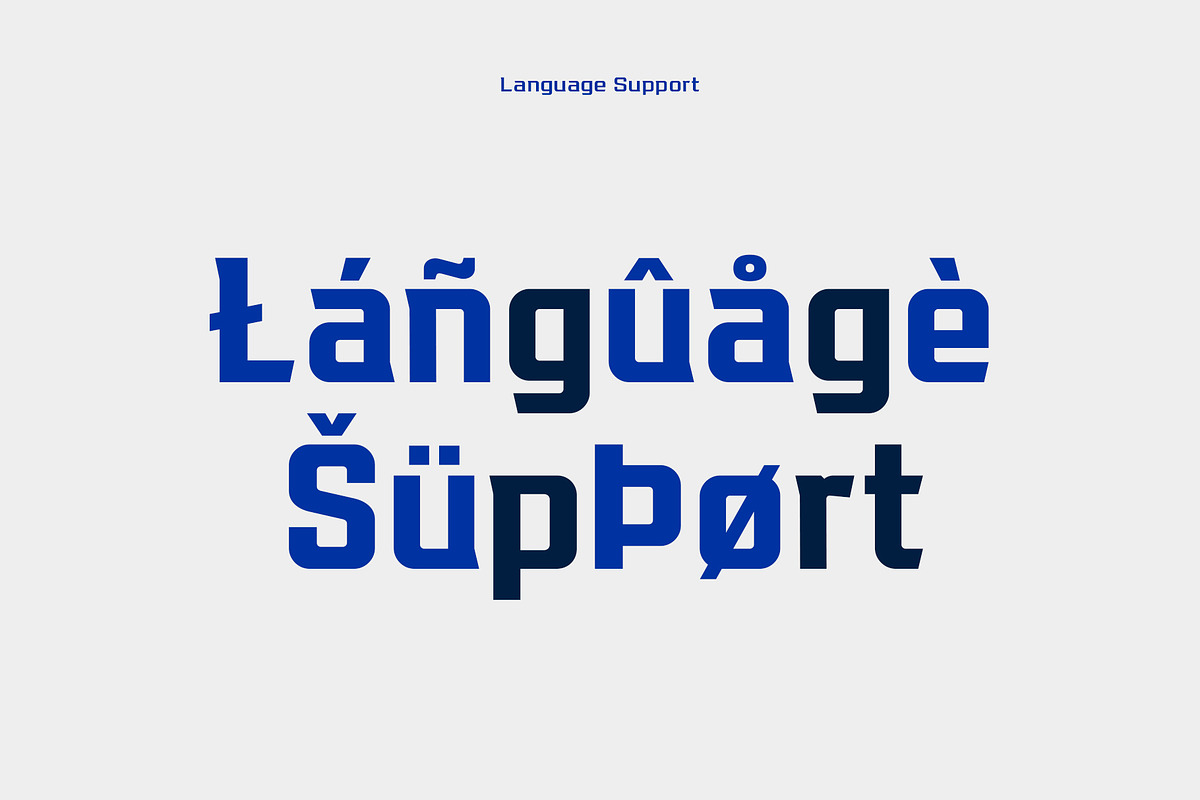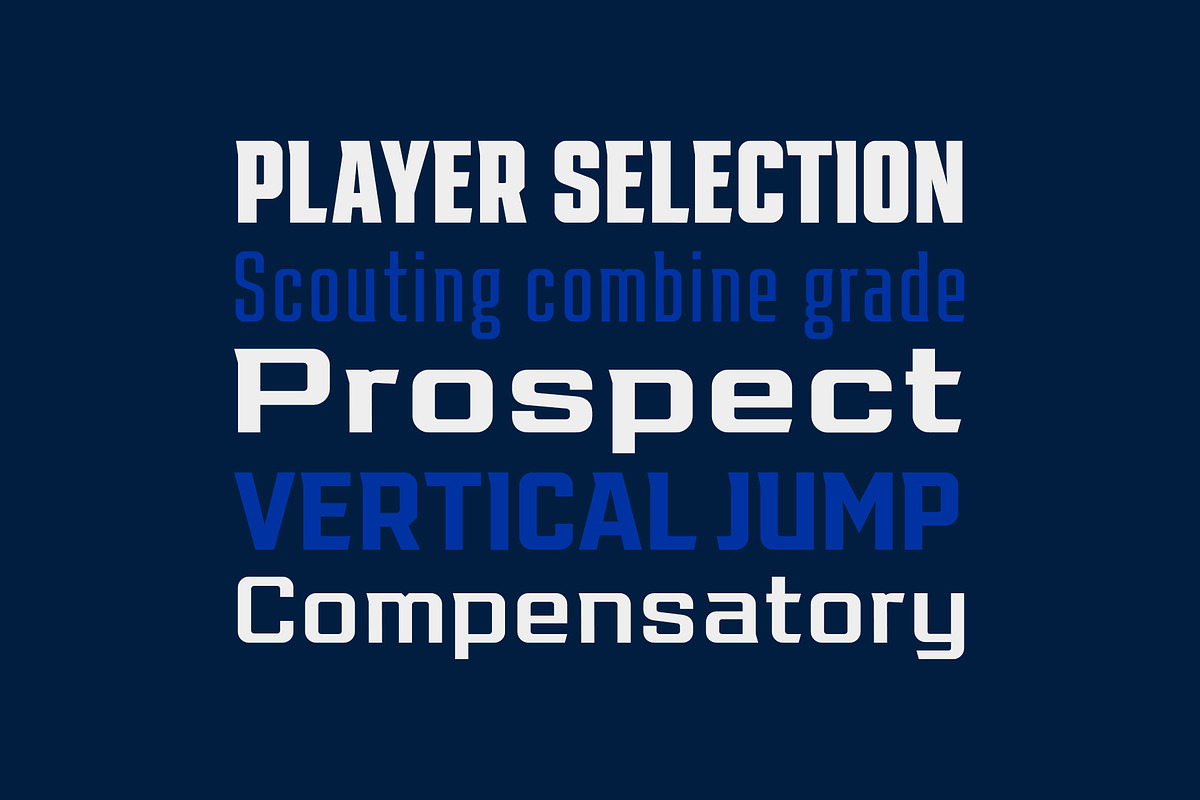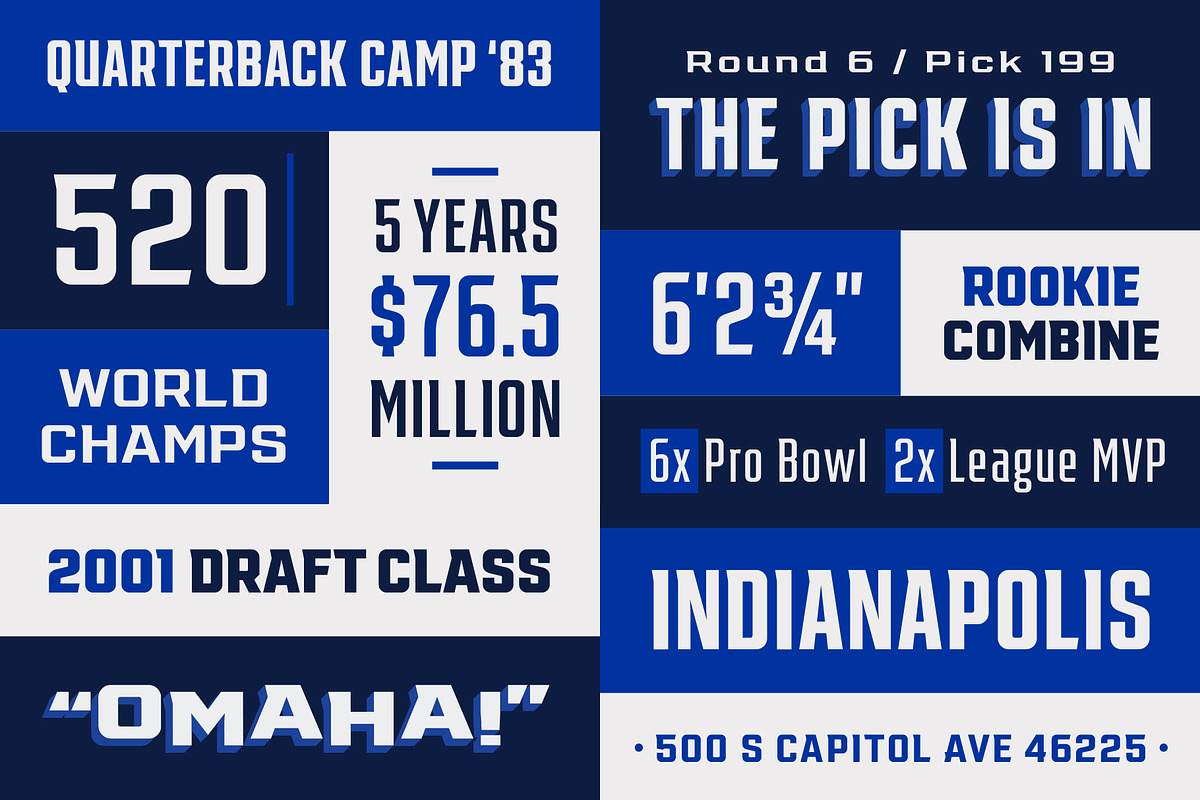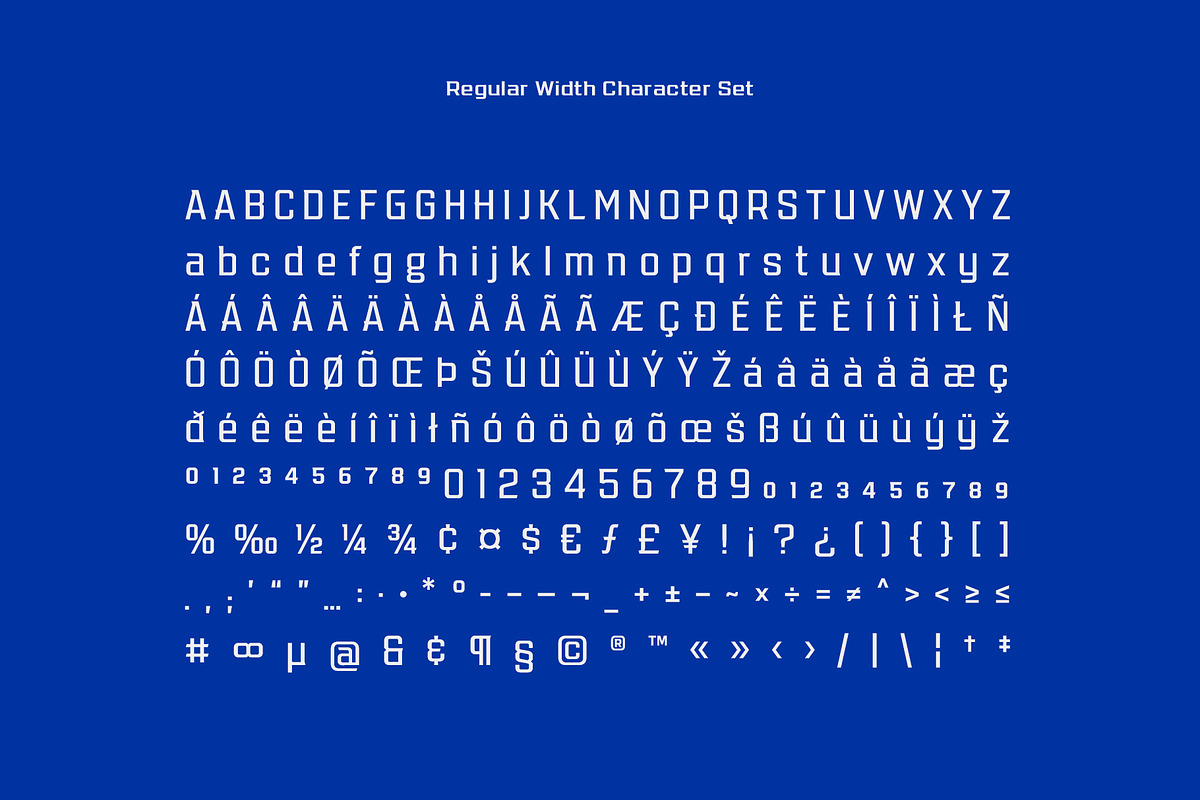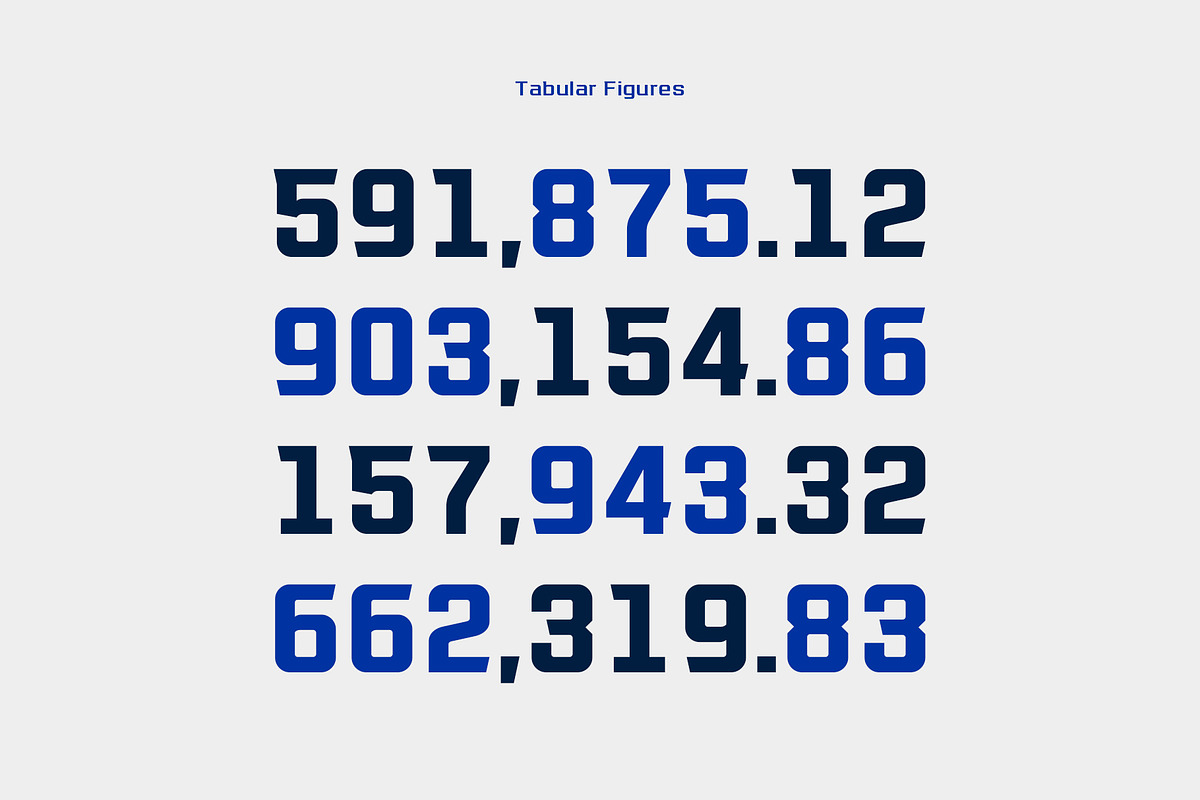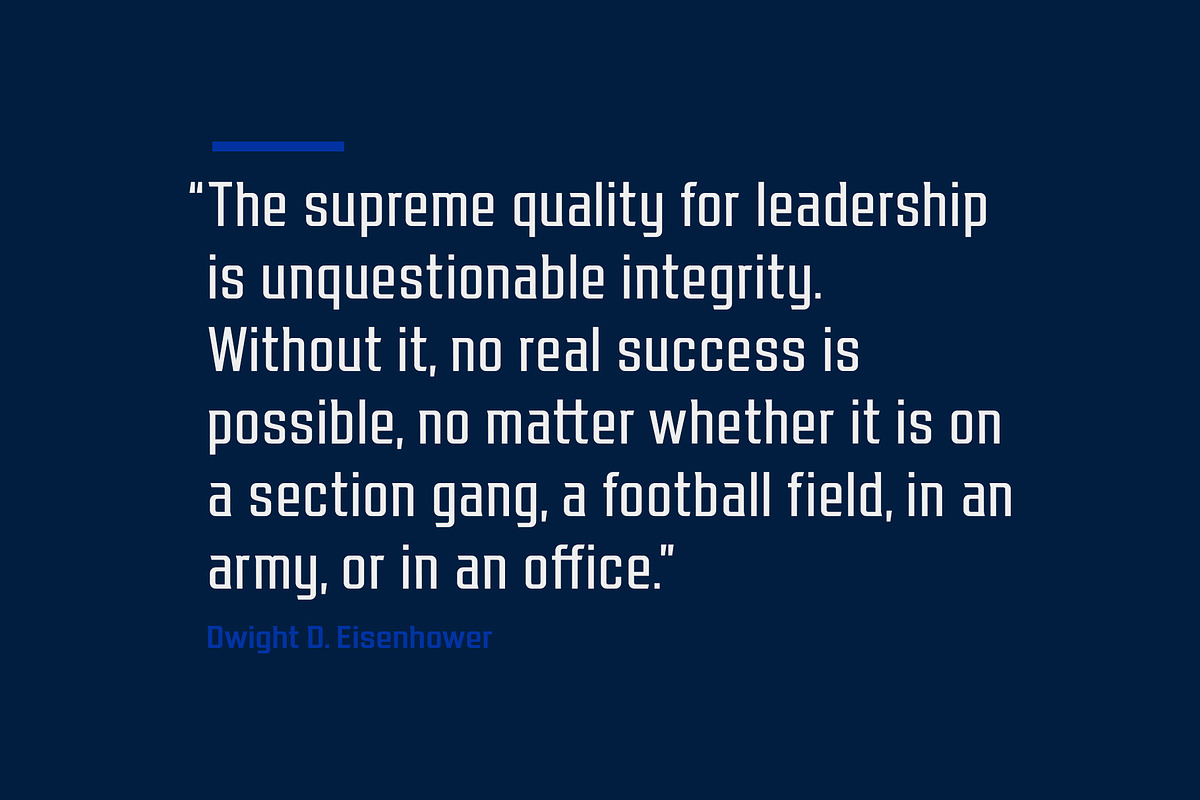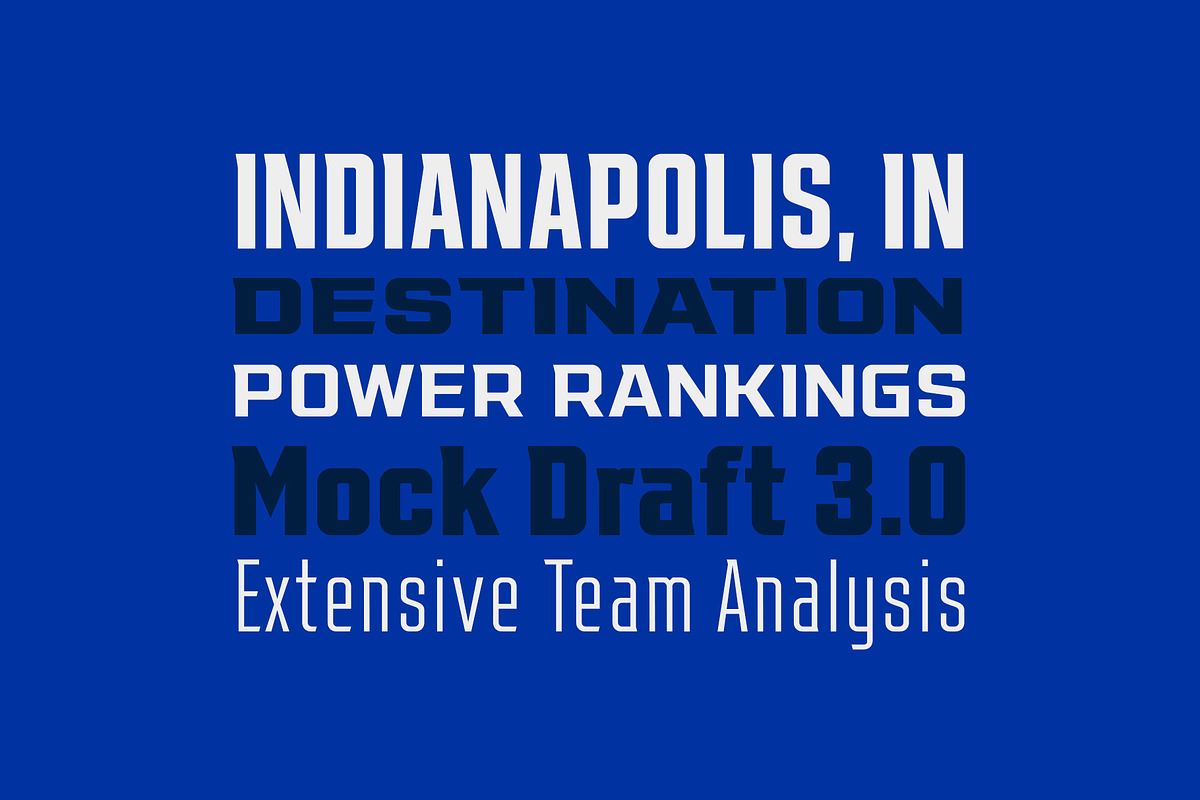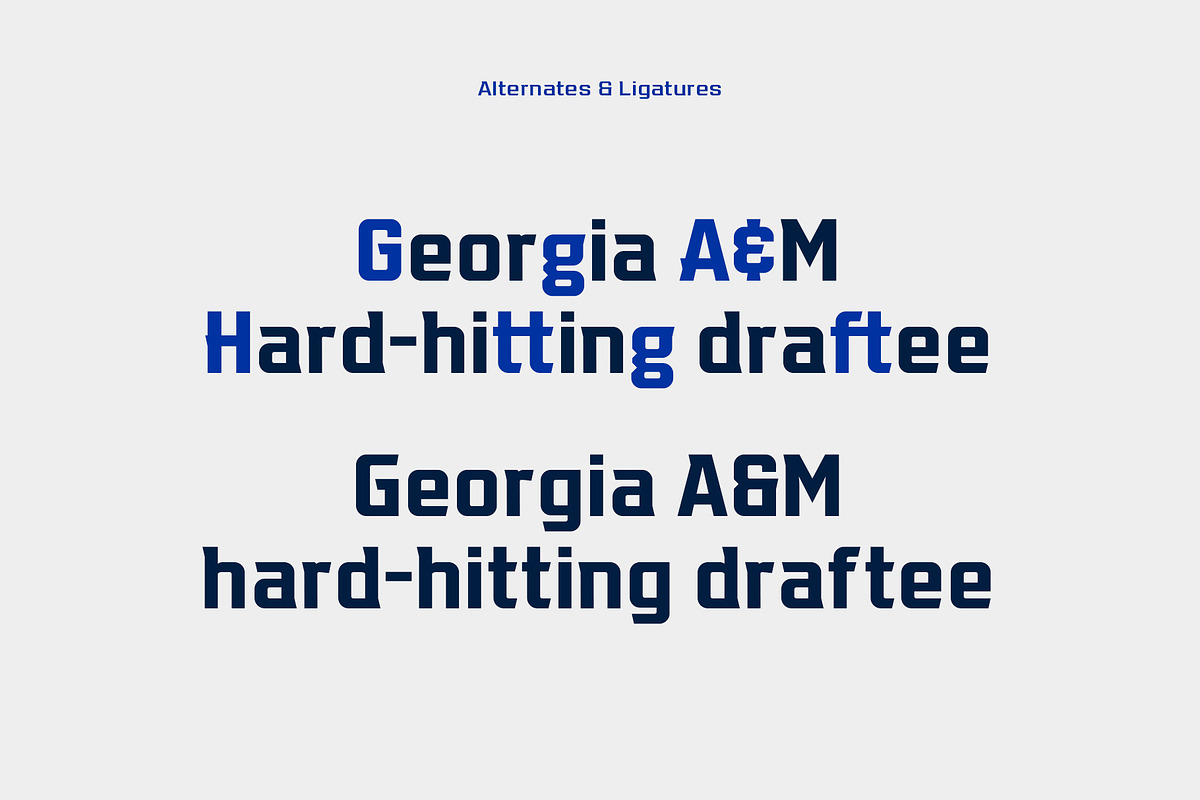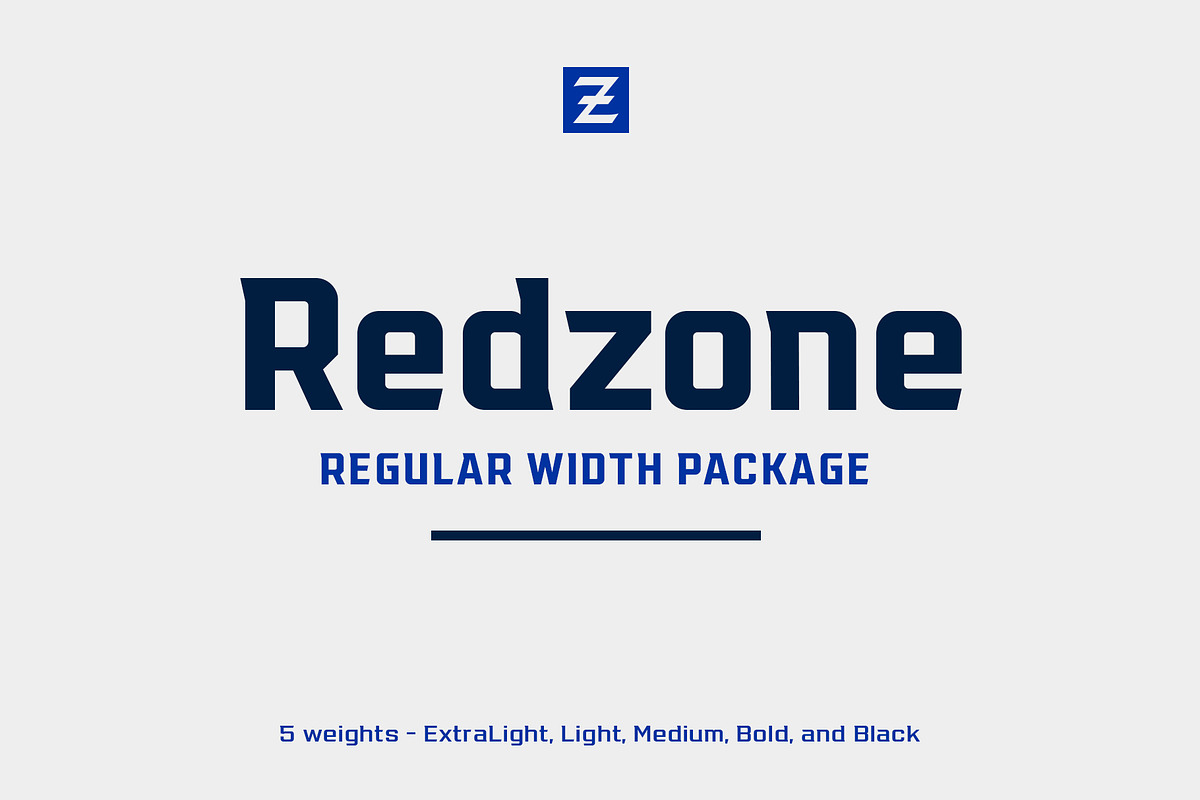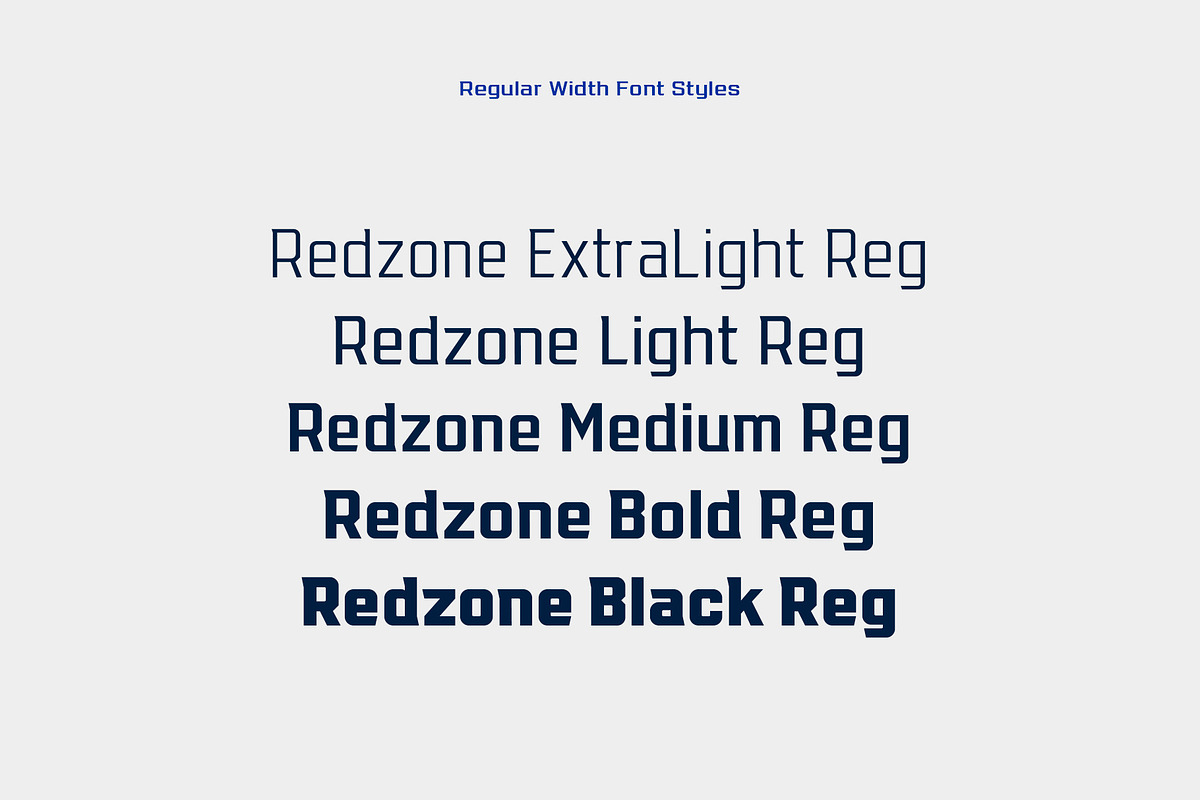
Redzone Display – Regular
“Redzone” is a versatile display family developed as the workhorse typeface for the “Ultimate Football League”, a fictional football league passion project. With a strong focus on the sports branding industry, “Redzone” has a voice that is competitive and sophisticated, its letterforms featuring angled terminals and sharp serifs across 5 weights and widths. Its generous x-height and overall build makes it especially capable for headlines, thought it serves well for shortened body type as well.
The “Redzone” name was debuted in October of 2017 as a titlecase font (later refined and renamed “Redzone Classic”), redesigned in November of 2018 with sheared and stenciled styles, and is now presented in the most streamlined version yet with the same charming fearlessness still present.
- Adobe Latin 1 character package + alternates
- 294 characters per style, 7,300+ for the family
- Basic language support
- Fractions + Tabular figures